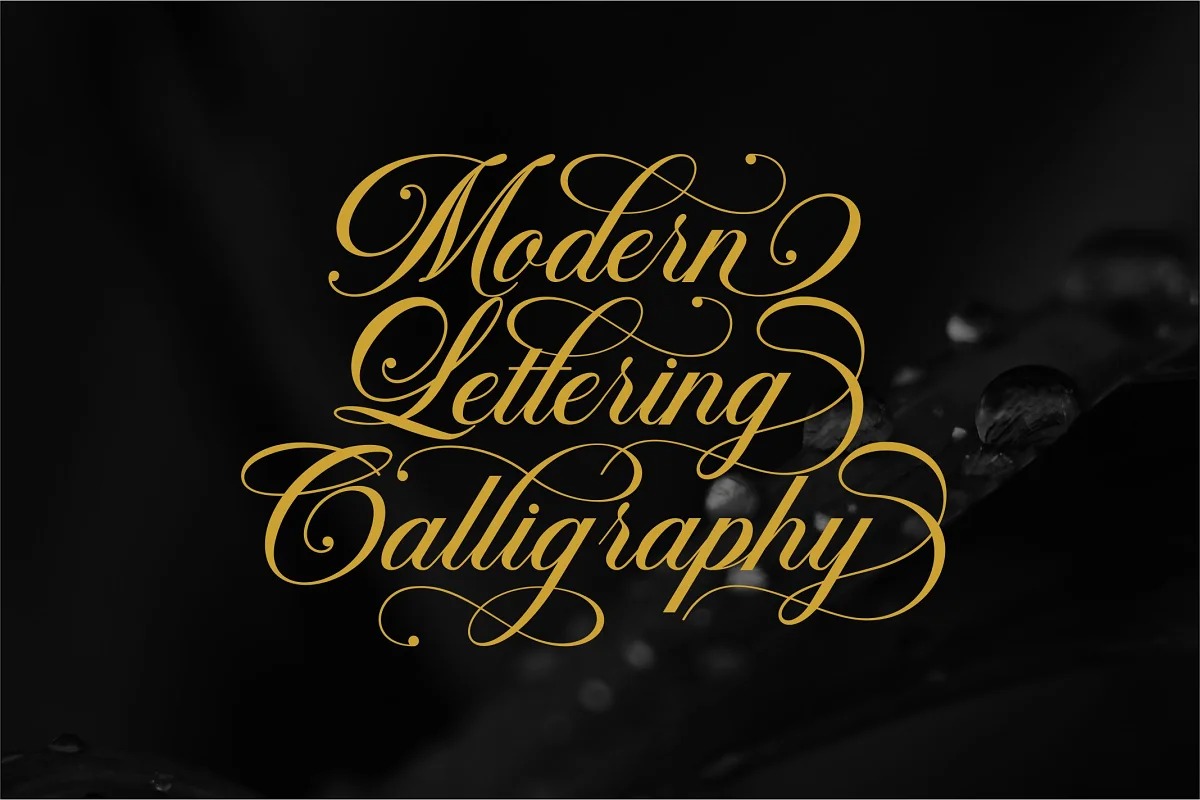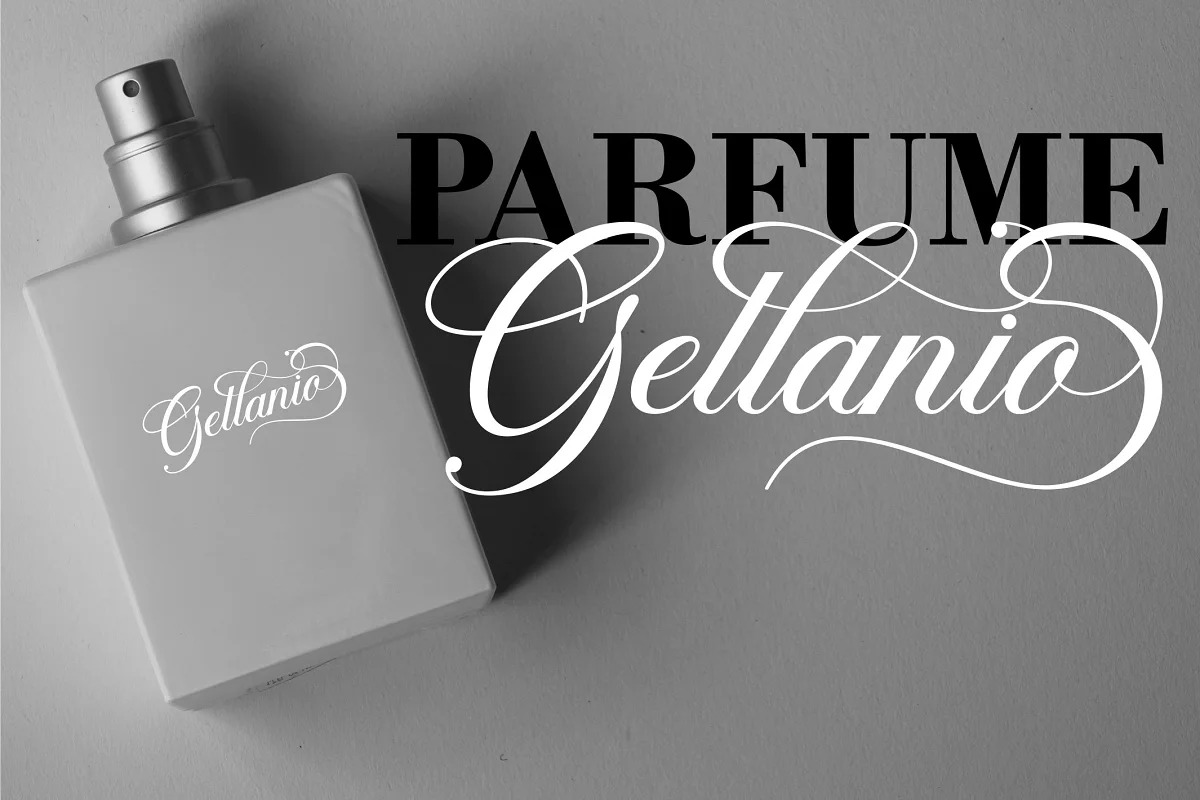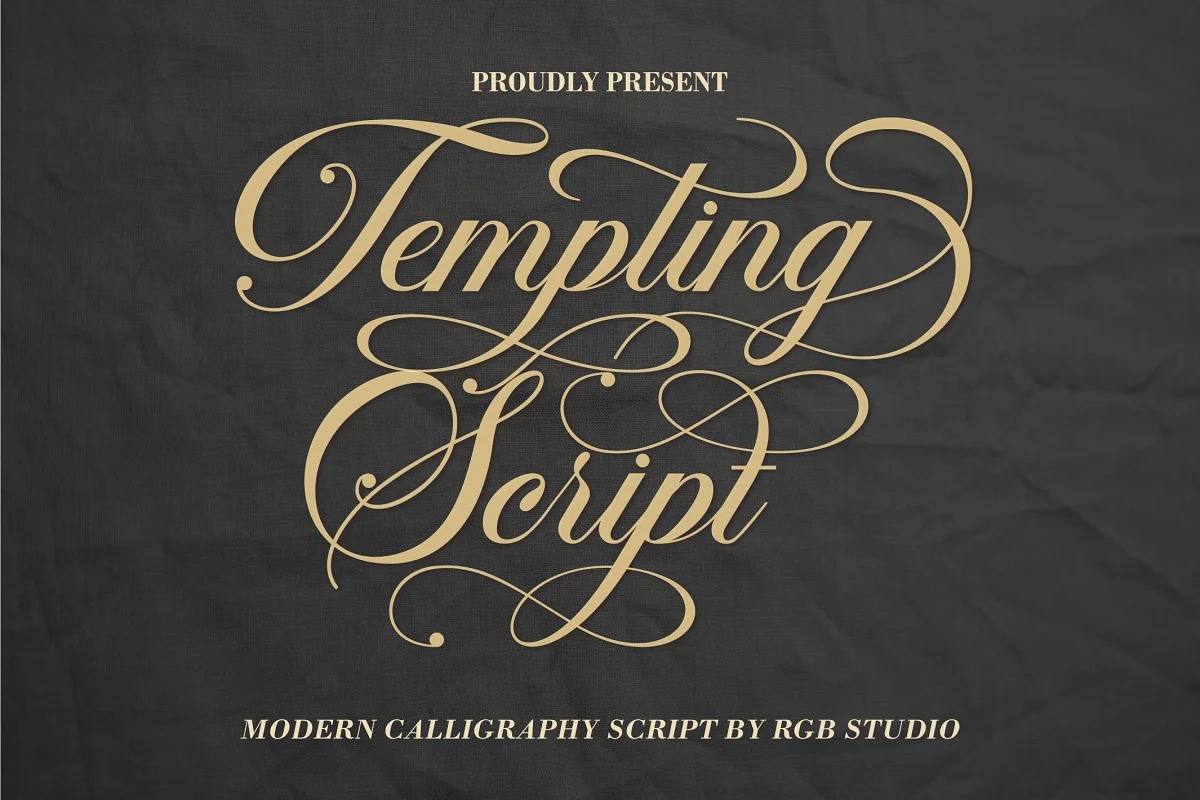
Tempting Calligraphy Font is a sophisticated calligraphic font defined by its smooth curves, clean lines and the finest of fine strokes. Graceful and refined in its most basic script form, a range of Swash and Decorative alternates allows users to elevate their designs to higher levels of aesthetic beauty and elegance.